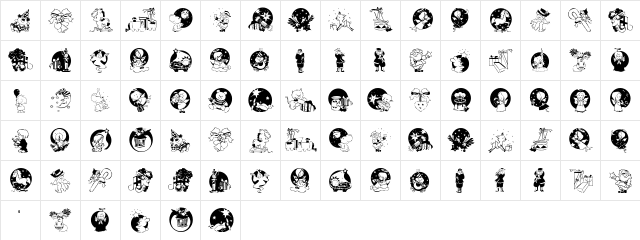
XmasPromotionsSymbols Regular Font Preview
XmasPromotionsSymbols Regular
XmasPromotionsSymbols Regular Font Details
Design Context for XmasPromotionsSymbols Typeface
XmasPromotionsSymbols is a composed and adaptable typeface that performs quietly and consistently across a wide range of design contexts.